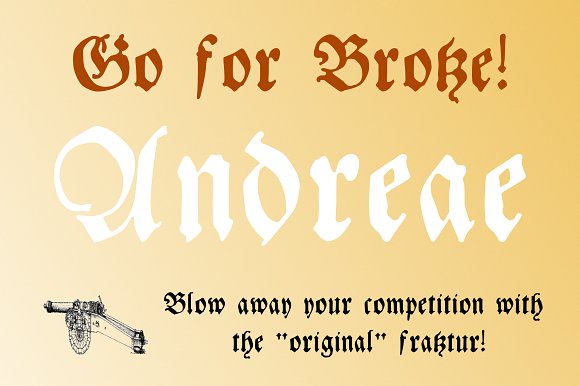
Step into the world of typography with Andreae Font, a mesmerizing blackletter font family that transports you back to a bygone era of exquisite craftsmanship. Inspired by the works of Hieronymus Andreae, a pioneer in the printing industry, this font exudes historical charm and visual intrigue.
Crafted with meticulous attention to detail, Andreae Font captures the essence of Fraktur script, a distinctive writing style that originated in 16th-century Germany. This font's elegant curves, sharp angles, and intricate flourishes evoke a sense of grandeur and sophistication. From the sweeping ascenders to the delicate descenders, every letter is a masterpiece of typographic art.
Imagine your designs adorned with the timeless beauty of Andreae Font. Its bold and captivating presence commands attention, making it the perfect choice for logos, posters, invitations, and other projects that demand a touch of elegance and distinction. Let your words dance with grace across the page, leaving a lasting impression on your audience.
Andreae Font is more than just a collection of characters; it's a gateway to a world of creativity and endless possibilities. Whether you're a seasoned designer or just starting your typographic journey, this font will ignite your imagination and unleash your creative potential.
With Andreae Font, the ordinary becomes extraordinary. Its captivating charm will elevate your designs to new heights, leaving your audience spellbound. Don't miss this opportunity to own a piece of typographic history and add a touch of timeless elegance to your creative arsenal. Dive into the world of Andreae Font today and unlock the limitless possibilities that await you.